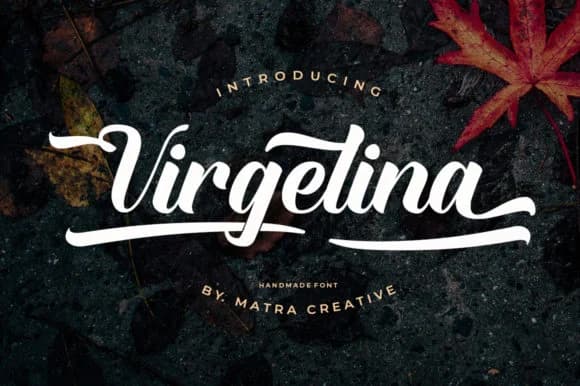
Virgelina by Matra Creative is a handwritten calligraphy script that combines striking flourishes with refined elegance. This carefully crafted typeface captures the authentic feel of traditional penmanship while maintaining the polish needed for professional applications. The fluid letterforms and distinctive character shapes give your work an expressive, personal quality that stands apart from conventional fonts.
Whether you're designing wedding invitation suites, creating luxury product packaging for boutique brands, or developing personalized greeting card designs, Virgelina brings sophistication to any project. Its versatility extends to social media graphics, event stationery, and branded content where a handcrafted aesthetic matters. The font's natural movement works beautifully for monogram designs and custom label creation, making it equally at home in high-end branding contexts or DIY craft applications.
The elegantly proportioned letterforms showcase thoughtful design details that come through at any scale, from large heading use to smaller print applications. This makes Virgelina a dependable choice for designers who value both artistic expression and functional clarity. Discover how this sophisticated script font can enhance your next creative project by adding it to your collection on Creative Fabrica.
Virgelina Font is a script font that shines as a display or heading face. Pair it with a clean sans-serif or serif font for body text β the contrast creates a clear hierarchy while the two styles stay balanced and easy to read.